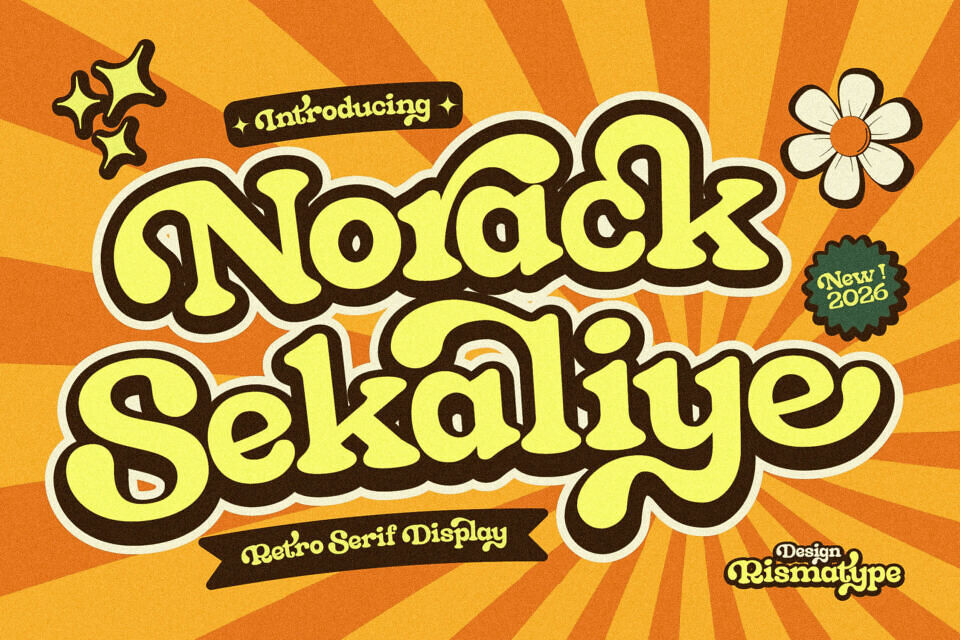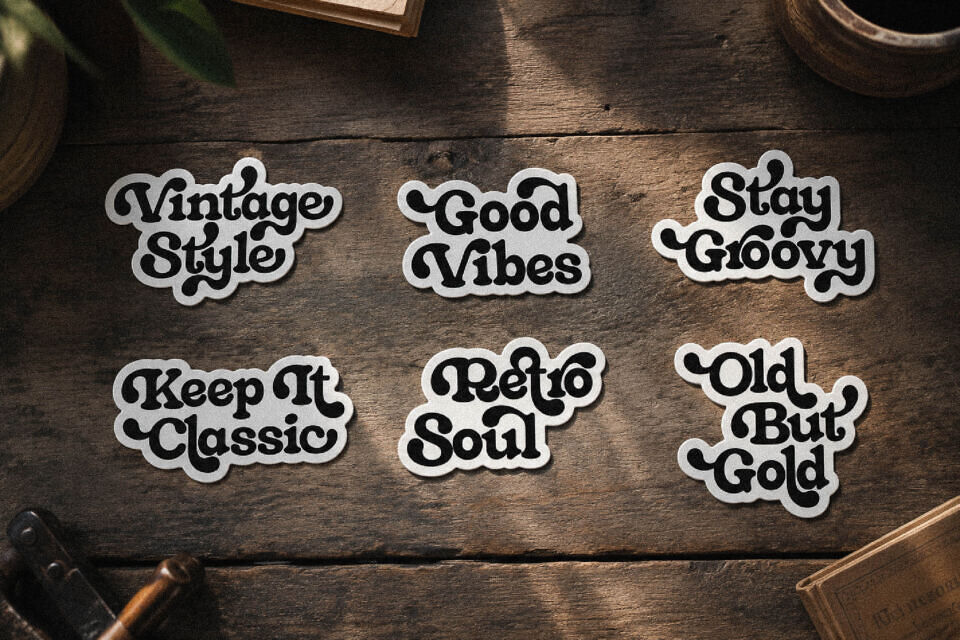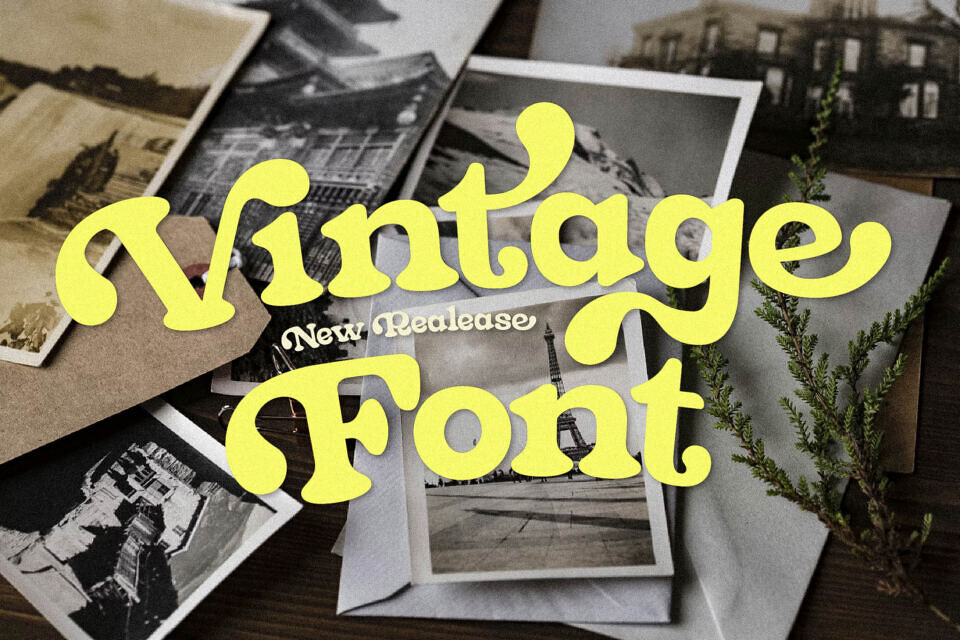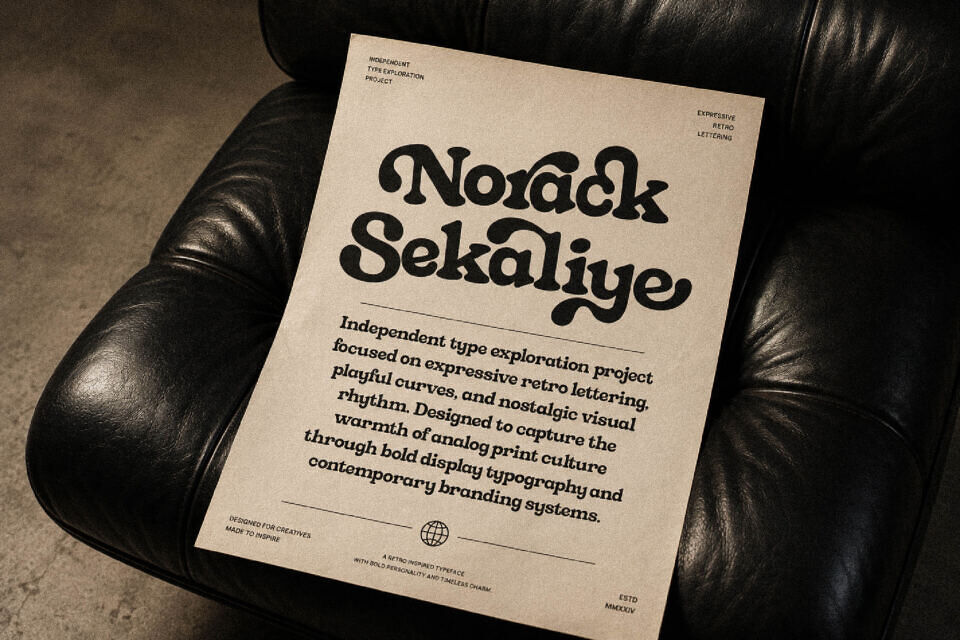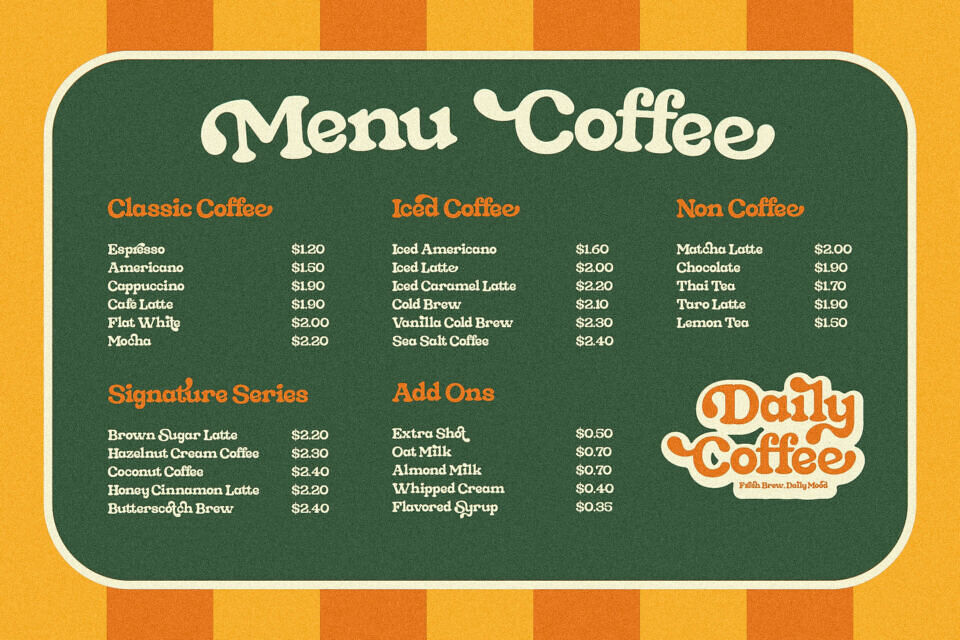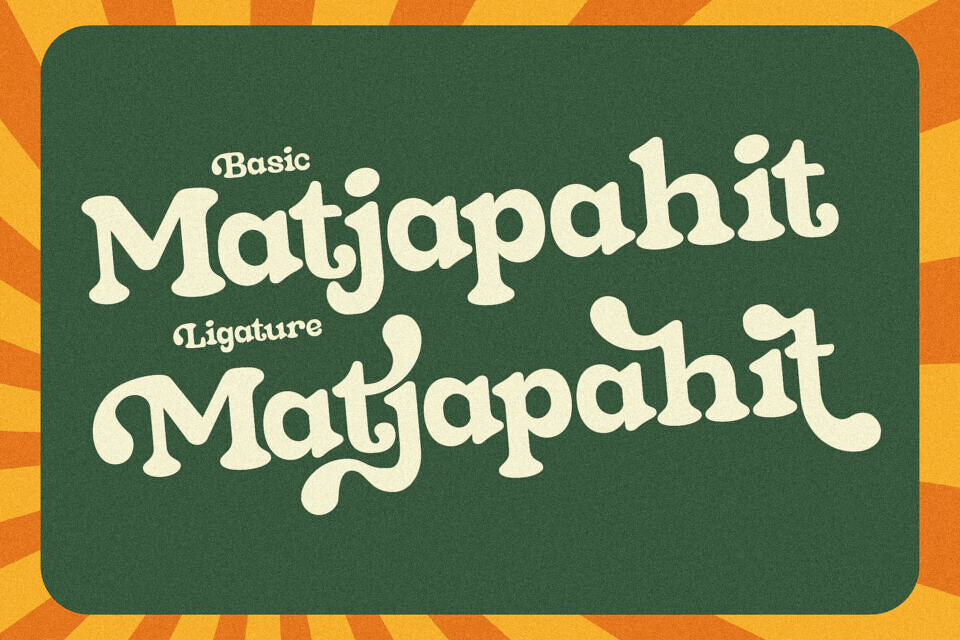
Norack Sekaliye Font
Norack Sekaliye is a premium retro serif display typeface crafted for designers, creative studios, fashion brands, editorial projects, luxury packaging, posters, and cinematic visual identities. Inspired by vintage typography and modern luxury aesthetics, this typeface combines bold serif anatomy with elegant curves, refined contrast, and timeless character details.
Designed to create strong visual presence while maintaining sophisticated readability, Norack Sekaliye works perfectly for branding systems, magazine layouts, logo design, social media campaigns, product packaging, and high-end creative direction. The typeface delivers a nostalgic yet contemporary atmosphere, making it ideal for projects that require a premium retro editorial look.